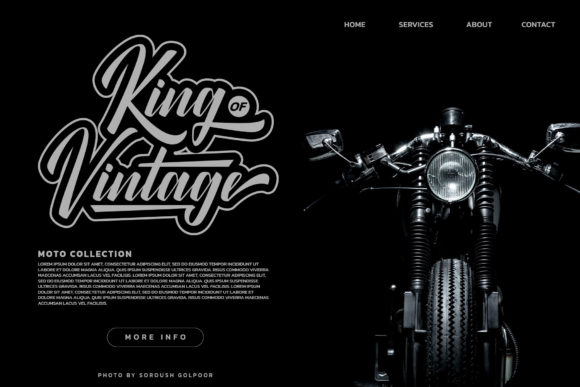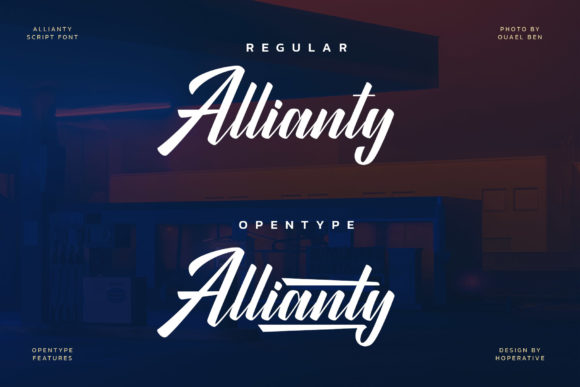
Allianty Font
db-ku.com - Script & Handwritten -- Allianty is a gorgeous and retro styled script font, crafted to add tons of stylish character to your designs. This font is PUA encoded which means you can access all of the glyphs and swashes with ease!